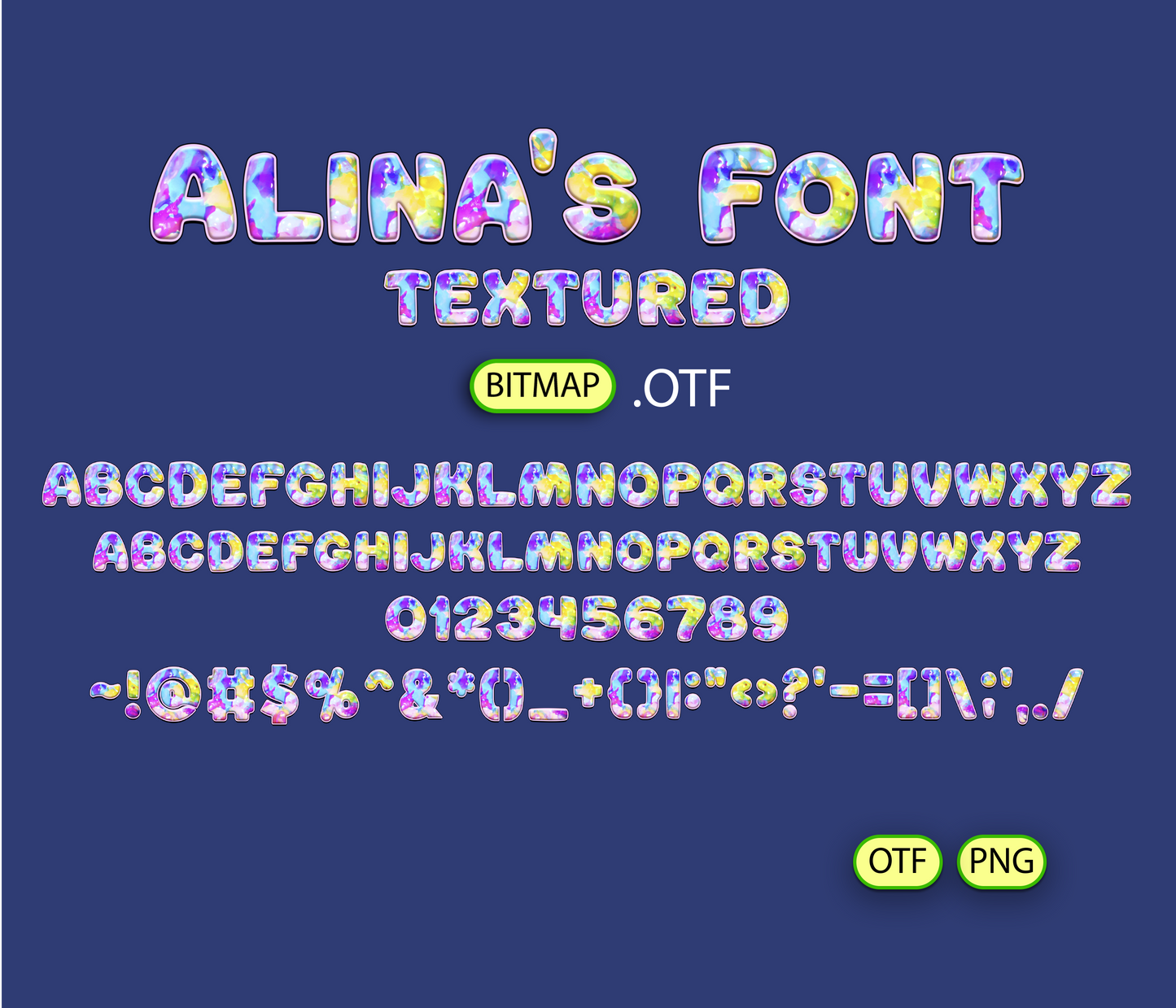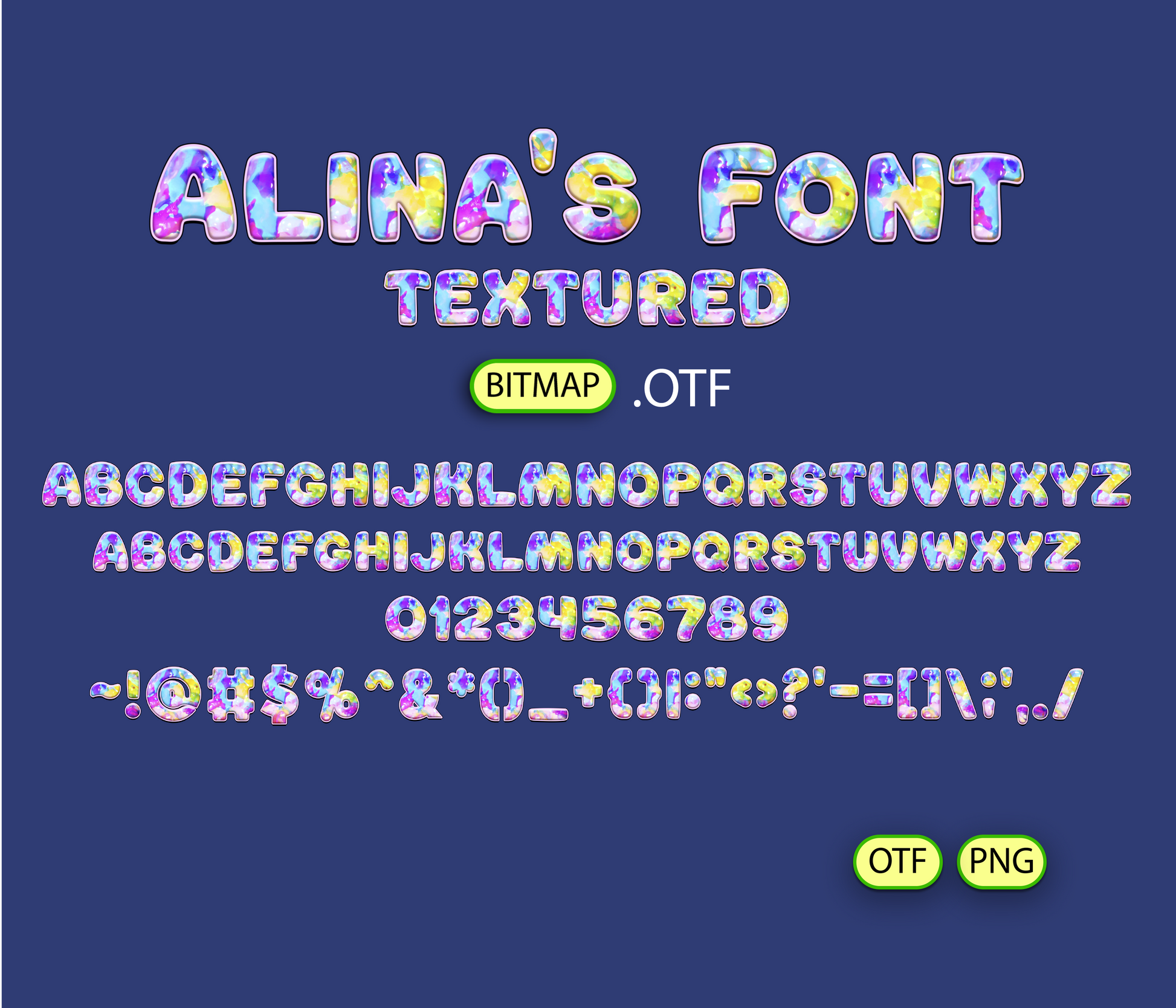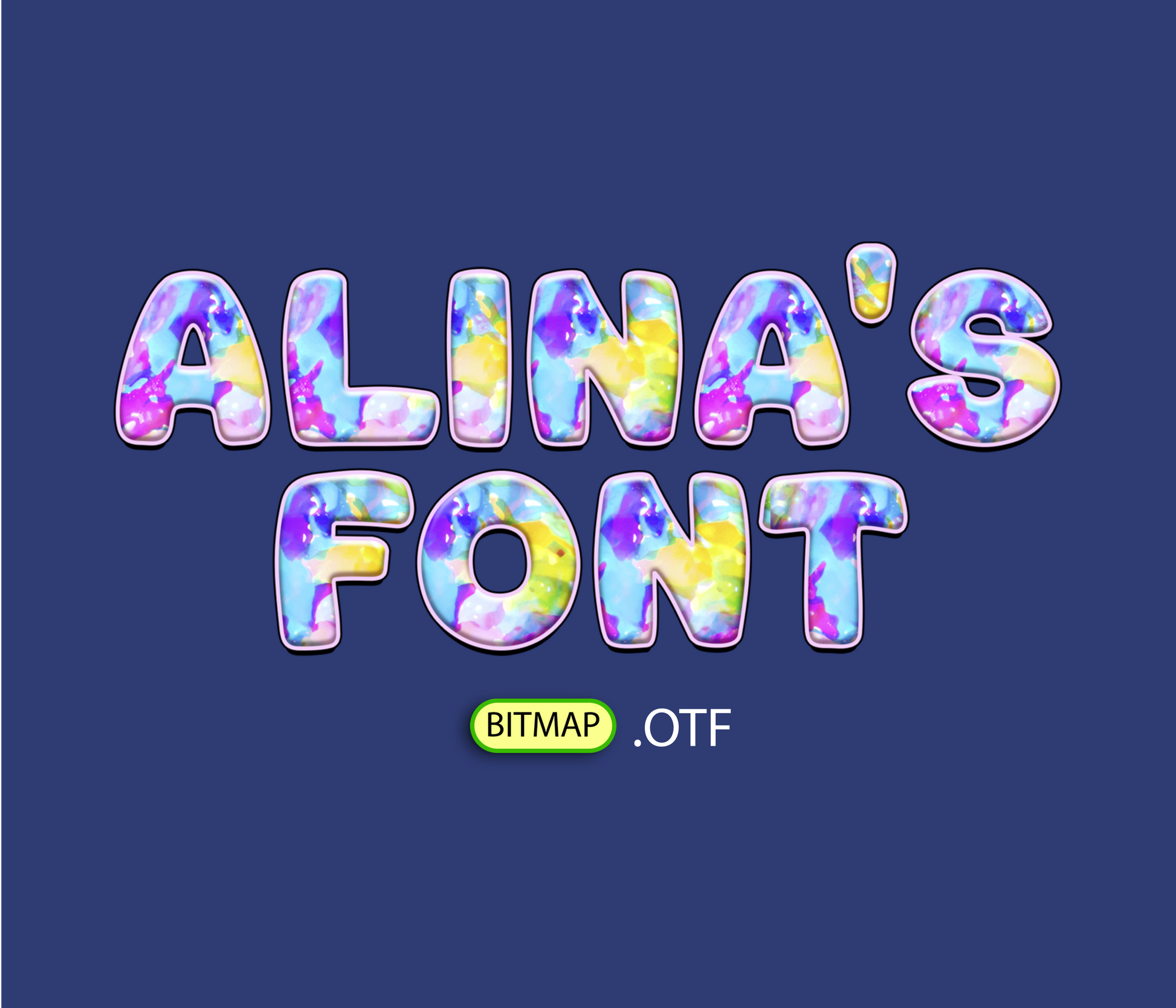
FREE Dreamy Splash Pattern Font
Dreamy Splash Typeface Textured
Enter the mesmerizing world of fluid artistry with our Dreamy Splash Typeface, capturing the spontaneous beauty of pigment diffusion and ethereal color transitions. Designed for illustrators, event planners, lifestyle businesses, and artistic visionaries, this font embodies the whimsical, translucent magic of brush-to-paper creativity. Produce enchanting marketing materials, elegant invitations, or captivating digital designs with the soft, flowing mystique of artistic color exploration.
Our Dreamy Splash Typeface showcases fluid, ripple-inspired characters and graceful letterforms that capture the spontaneous nature and gentle transparency of watercolor artistry. Ideal for:
- Creative Enterprises: Build memorable logos, product branding, and marketing pieces for art collectives, craft boutiques, and handmade goods businesses
- Event Planning: Exceptional for engagement announcements, party invitations, and festive materials that require artistic sophistication and romantic appeal
- Web Design: Transform online portfolios, creative blogs, and social media presence with dreamy typography that conveys artistic passion and creativity
- Educational Projects: Enhance workshop materials, artistic curriculum content, and promotional assets for creative learning experiences and art instruction
- Personal Crafting: Bring artistic elegance to handwritten notes, photo albums, and decorative projects inspired by the flowing beauty of watercolor expression